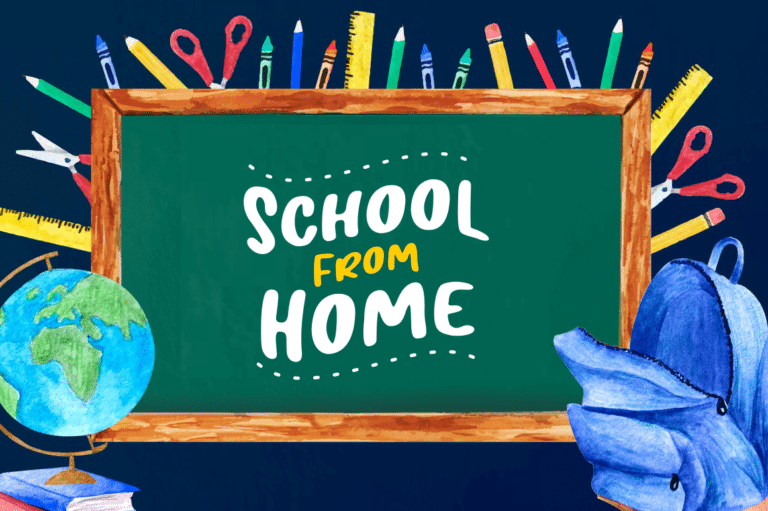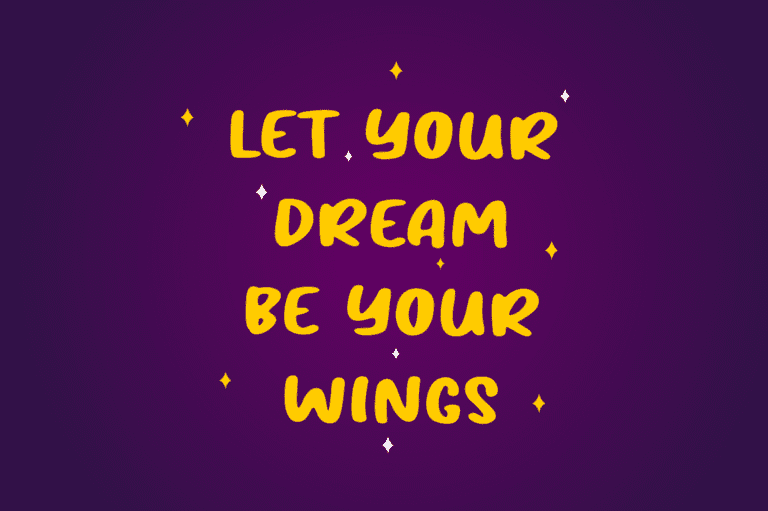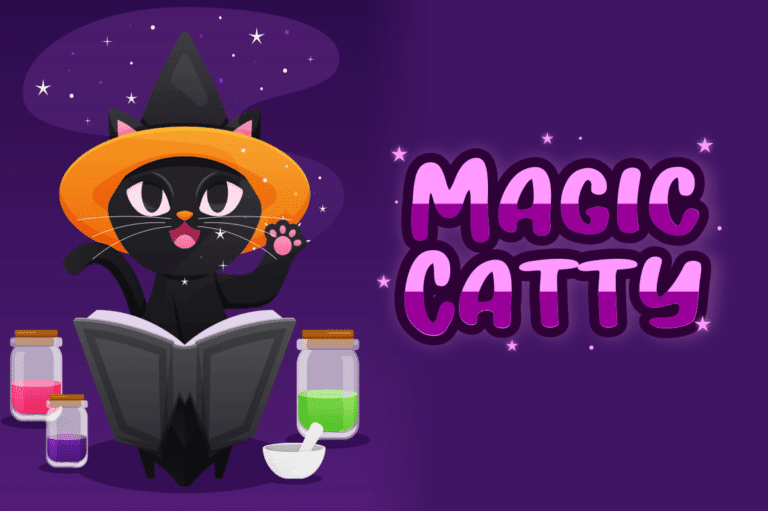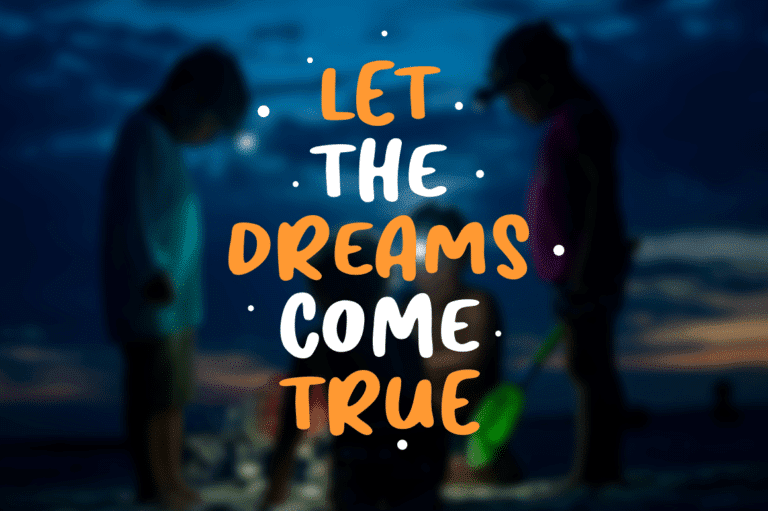
Nice Dream Font
Nice Dream is a fun display Font font, this font Is perfect for lproduct packaging, product designs, label, photography, watermark, special events or anything. Nice Dream comes with uppercase and lowercase letters, multilingual symbols, numerals, punctuation.